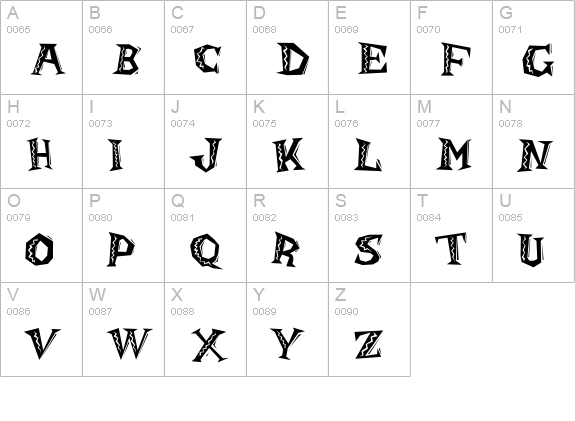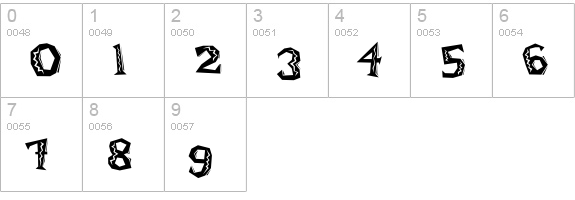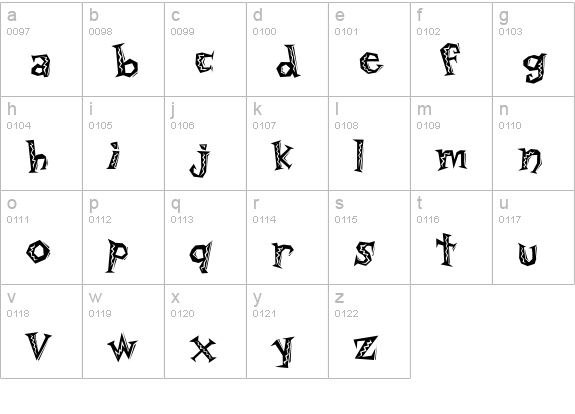
Introducing DaddyO Junkie font, a perfect blend of retro charm and modern edginess. This unique typeface captures the essence of vintage design, with its bold and playful letterforms that exude a sense of rebelliousness and nostalgia. DaddyO Junkie font is the ultimate choice for anyone looking to add a touch of retro flair to their projects. Whether you're designing a poster, creating a logo, or crafting a vintage-inspired website, this font will instantly transport your audience back to the golden age of rock 'n' roll and classic Americana. But what truly sets DaddyO Junkie font apart is that it is not only visually striking, but also freely available to download at FontsMarket.com. Yes, you read that right - this incredible font can be yours for free! Say goodbye to expensive licensing fees and restrictive usage rights. With DaddyO Junkie font, you have the freedom to unleash your creativity without any limitations. The versatility of DaddyO Junkie font is another reason why it has become a favorite among designers. It effortlessly transitions from bold headlines to eye-catching subheadings, making it suitable for a wide range of design projects. Its high legibility ensures that your message will be conveyed with clarity and impact, no matter the size or medium. So why wait? Embrace the spirit of rebellion and indulge in the vibrant energy of DaddyO Junkie font. Download it for free at FontsMarket.com and embark on a typographic journey that will captivate your audience and leave a lasting impression.